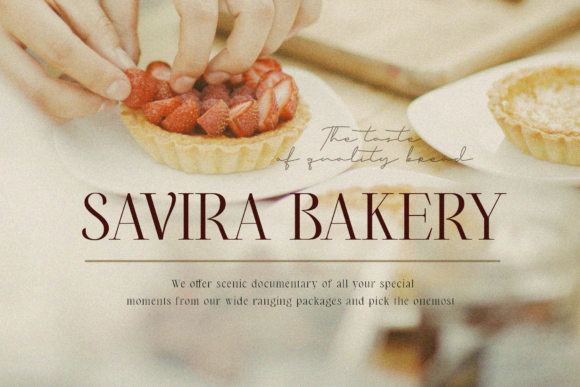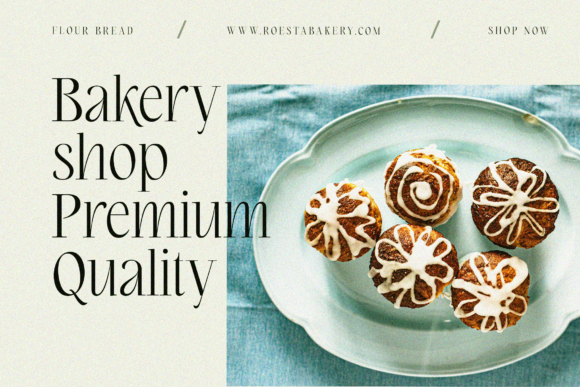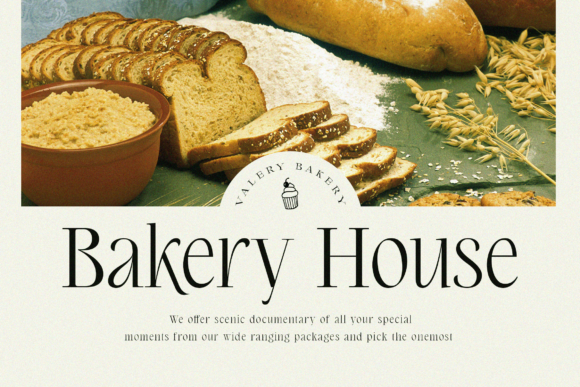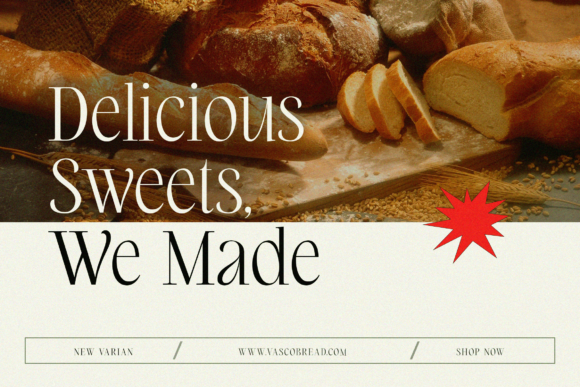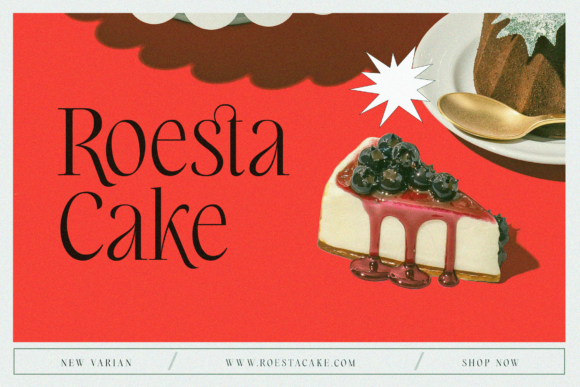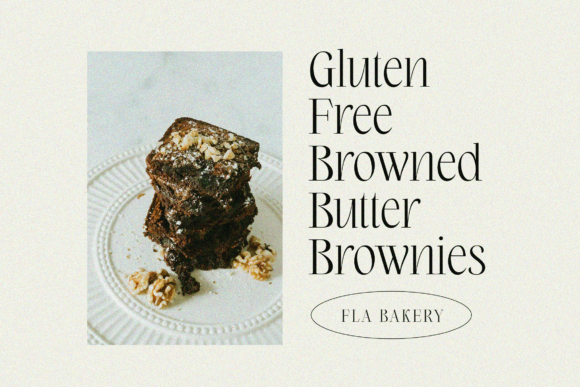
The Perfect Font for Your Next Masterpiece
Have you ever stared at a blank page, waiting for the perfect font to bring your creative vision to life? It’s a feeling we’ve all been there, right? The one that keeps us up late at night, sipping coffee and browsing through font libraries, searching for that elusive ‘aha’ moment.
That’s where the Brandcake Font comes in – a stunning Elegant Serif font designed specifically for high-end projects that demand sophistication and elegance. With its PUA encoding, you’ll have access to a vast array of glyphs and ligatures, allowing you to craft truly unique designs that leave a lasting impression.
For designers, the Brandcake Font is a valuable asset, offering the flexibility to tackle a wide range of projects, from luxury logos to art galleries and beyond. Its versatility and timeless appeal make it an essential addition to any design toolkit.
Key Features of Brandcake Font
- Unique Characteristics: Brandcake Font features a unique blend of modern and vintage elements, with clean lines, elegant curves, and subtle texture, making it perfect for luxury and premium brands.
Brandcake Font Review
When I first saw the Brandcake font, I was immediately drawn to its unique blend of modern and vintage vibes. The intricate details and textures add a level of sophistication that’s hard to find in other fonts. ✨
Here are some specific things that I love about the Brandcake font:
- Its versatility – it works well for both headline and body copy
- The way it adds a touch of elegance to any design
- Its wide range of character variations, making it perfect for creating a cohesive brand identity
- It can be a bit overwhelming for small text or tight spaces
- The font’s complexity may make it difficult to read on low-resolution screens
- The vintage feel may not be to everyone’s taste
Overall, I think the Brandcake font is a great choice for designers who want to add some visual interest to their projects. While it may have some limitations, its unique style and versatility make it a great addition to any design toolkit. With a little careful planning, you can use the Brandcake font to create some truly stunning designs.
The Brandcake Font is ideal for:
- Marketing materials (e.g. brochures, flyers)
- Digital signage and display design